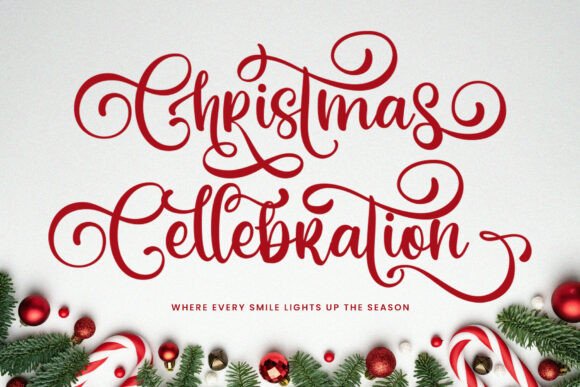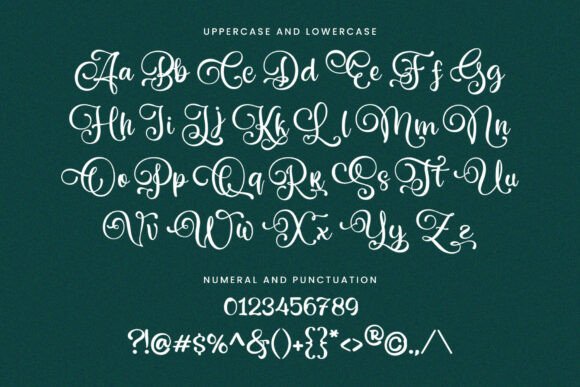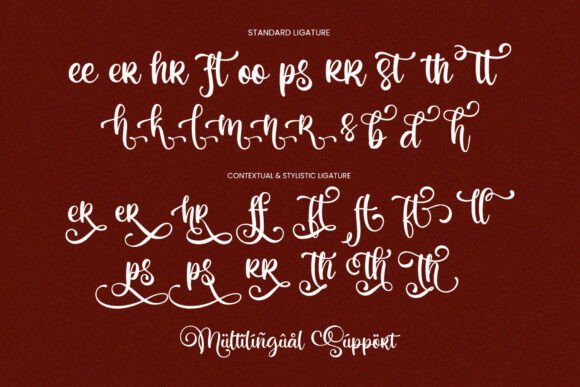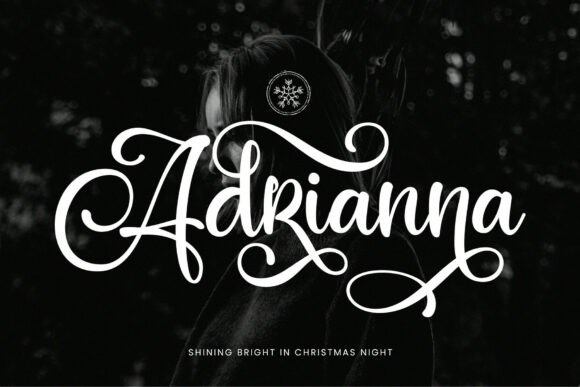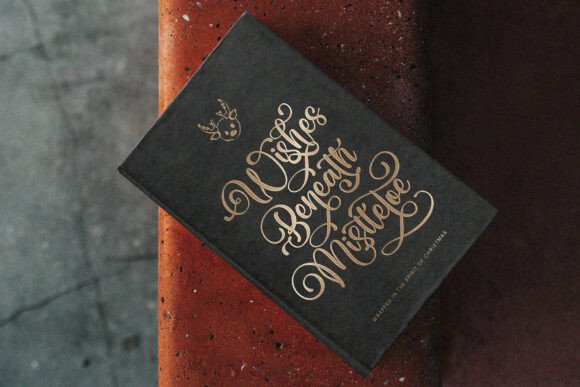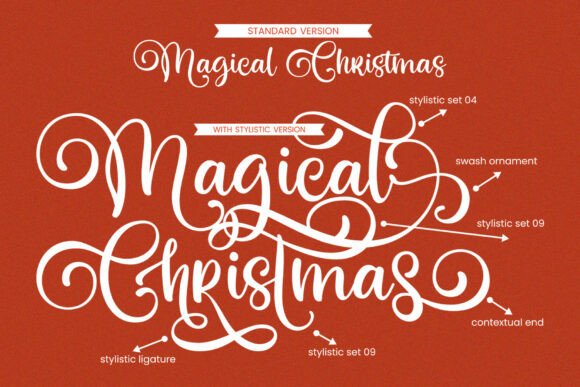
Introduction to Chorister Font
Chorister is an elegant cursive handwriting script font with over 450 stylistic characters.
Perfect for holiday greetings, invitations, logos, and romantic branding Its smooth swashes, delicate loops, and multilingual support make it a versatile font for all things magical and meaningful.
Key Features of Chorister Font